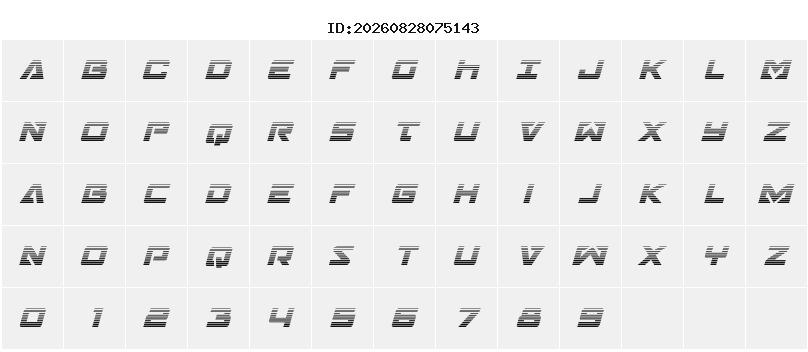
• Font Name: Trans-America Gradient Italic
• Full Font Name: Trans-America Gradient Italic
About Trans-America Gradient Italic.ttf
Trans-America Gradient Italic.ttf is a modern, elegant sans-serif font designed for ultimate readability and visual harmony. Perfect for branding, headlines, web design, and print materials.